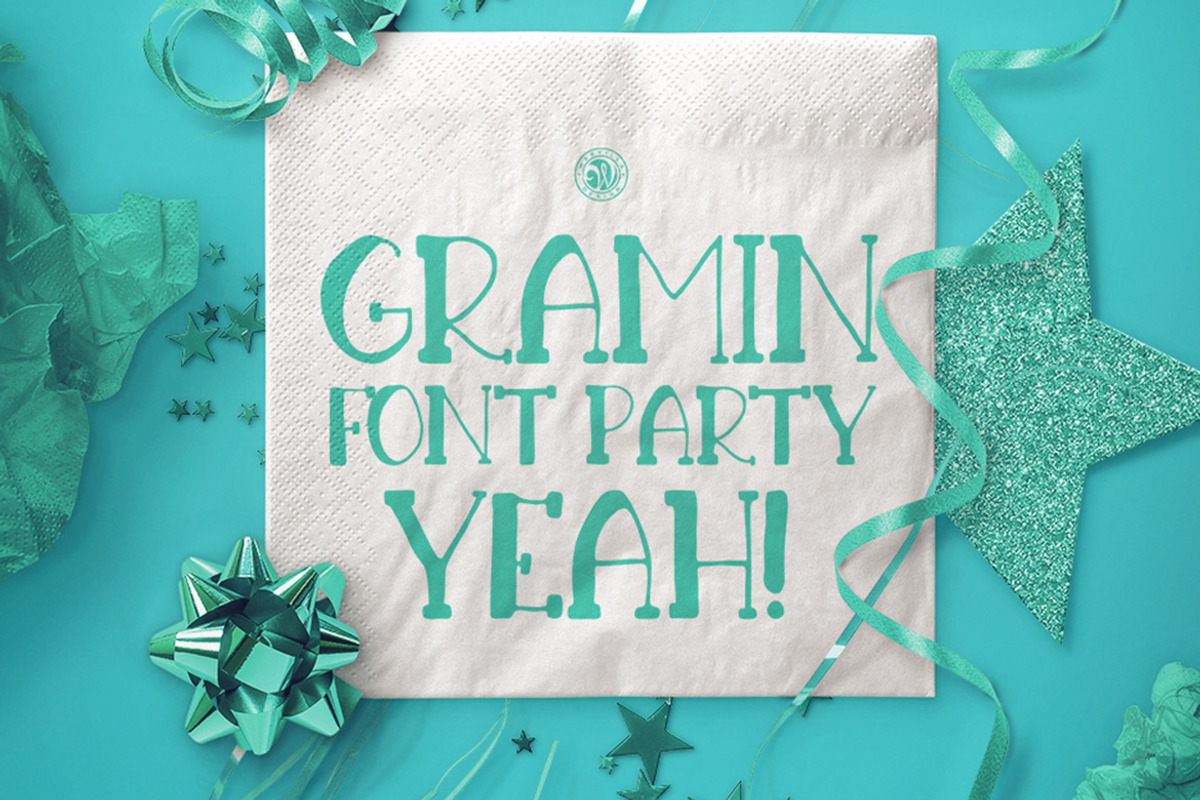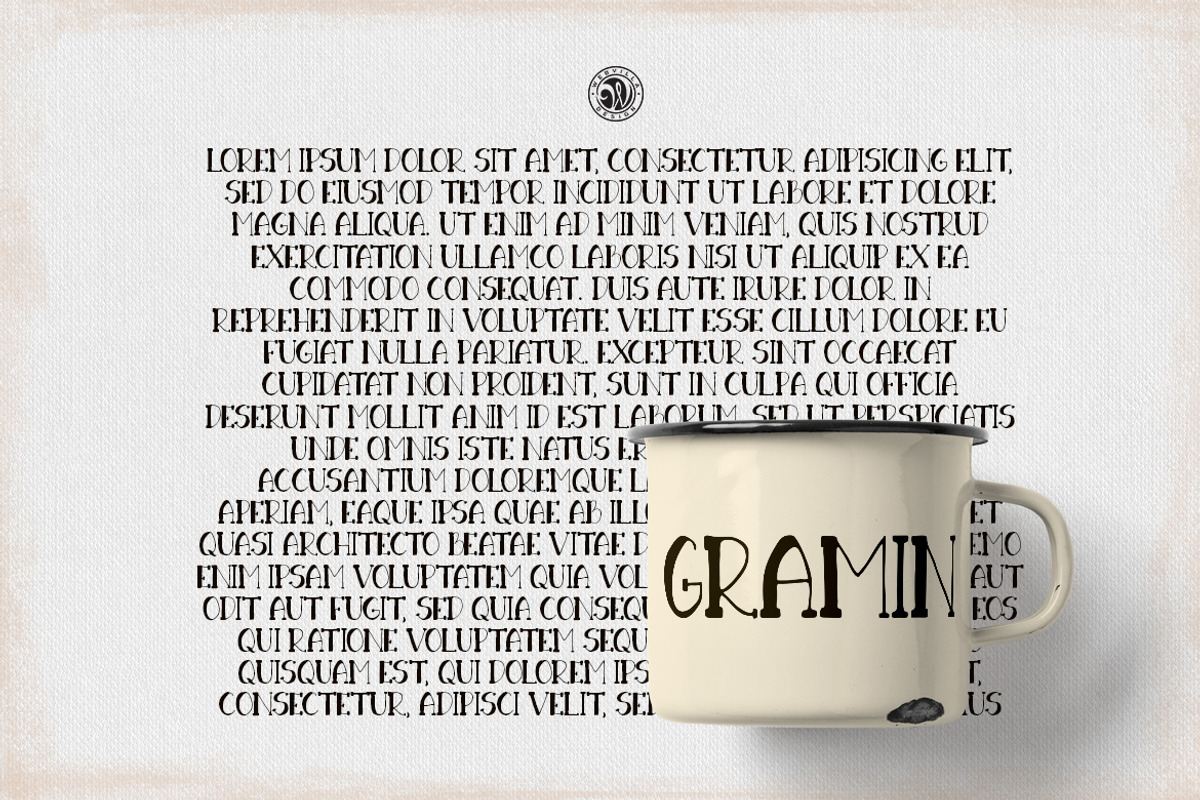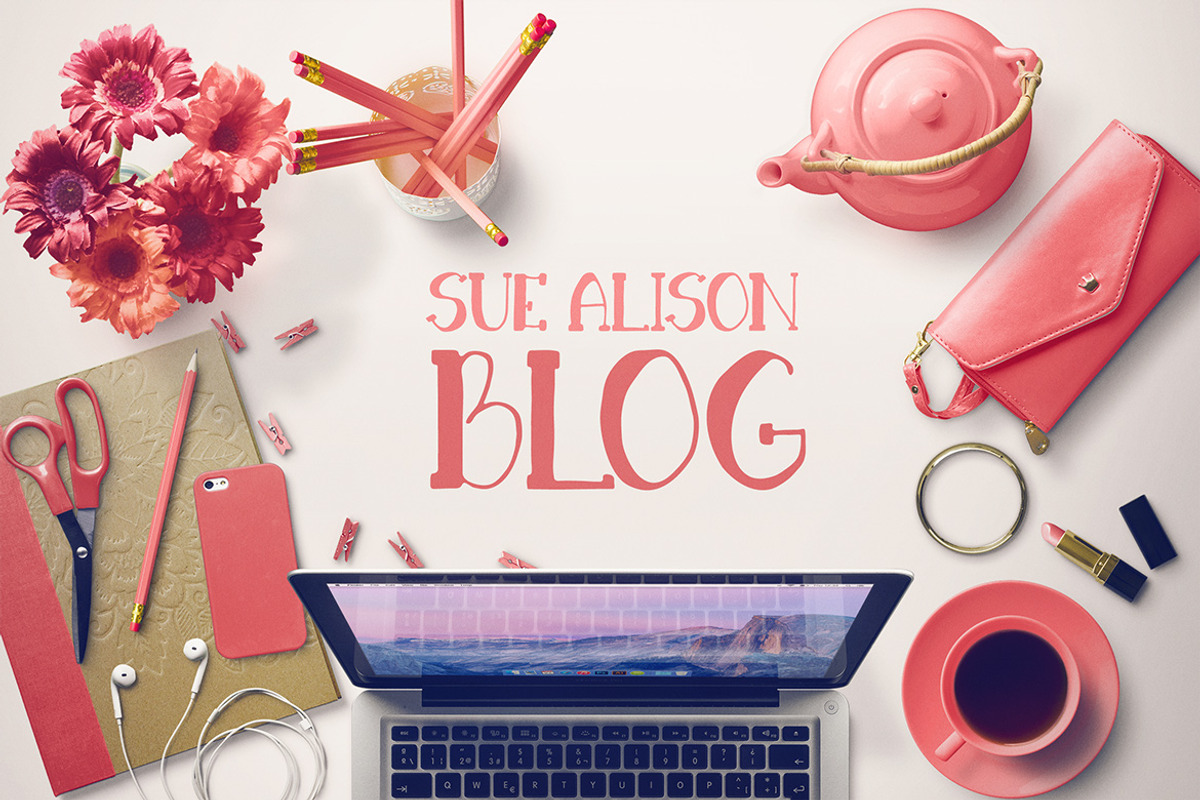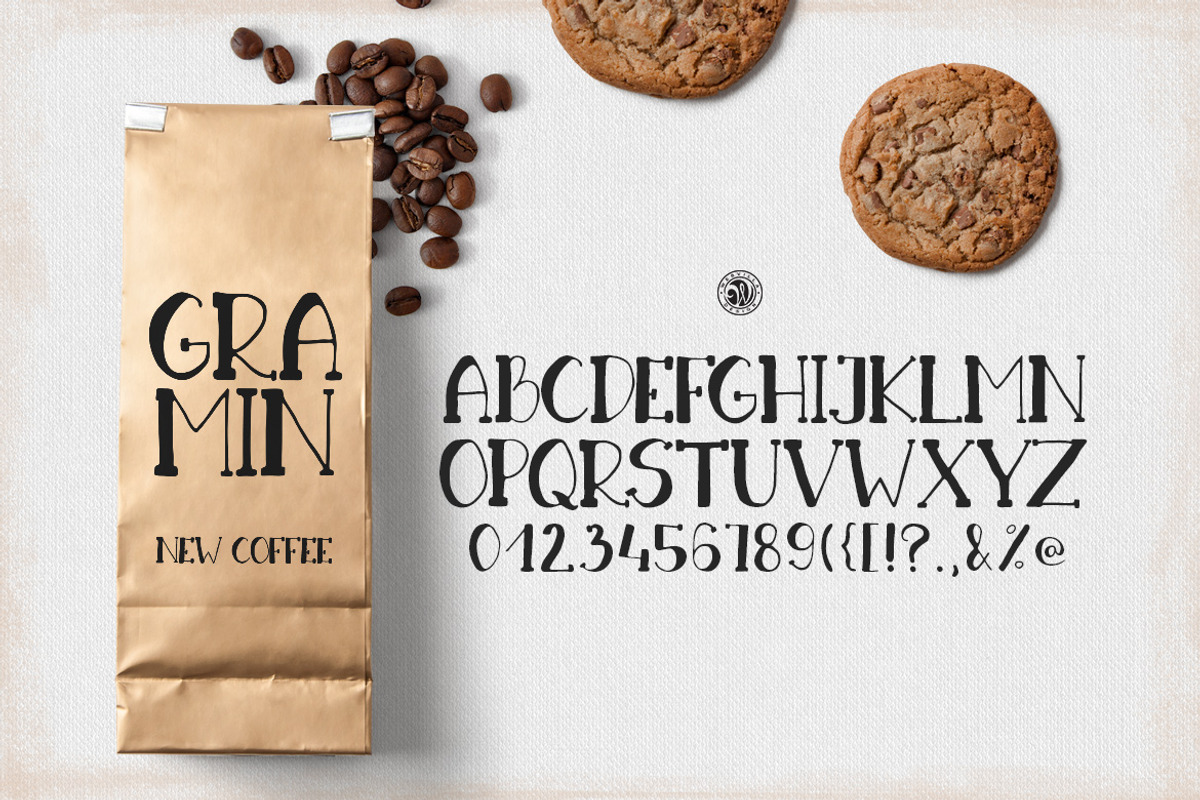
Gramin Font
Gramin Font by Webvilla Studio is a font selected for branding, posters, packaging, typography.
Why Gramin Font is worth a look
Gramin Font by Webvilla Studio fits naturally into Branding, posters, packaging, typography.